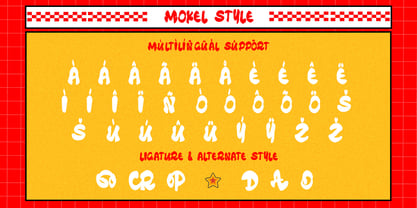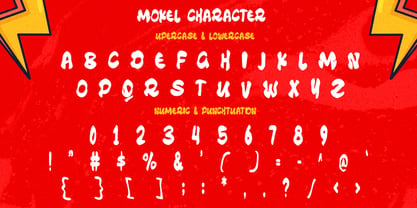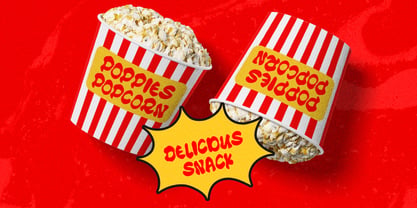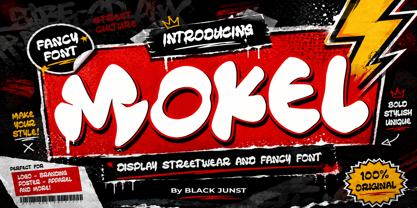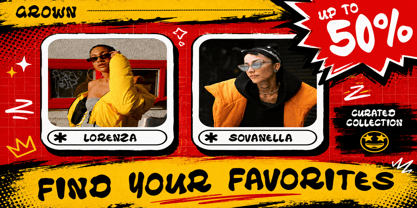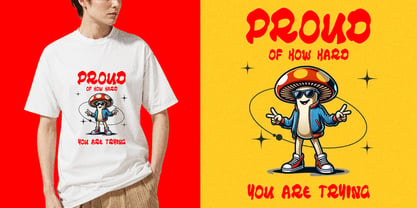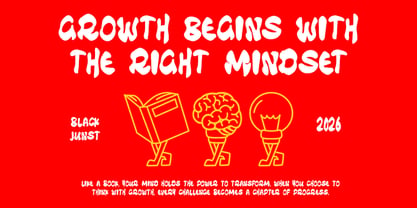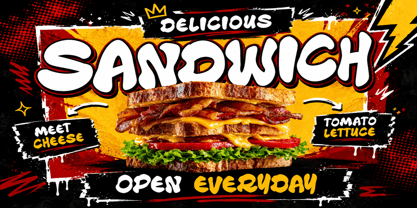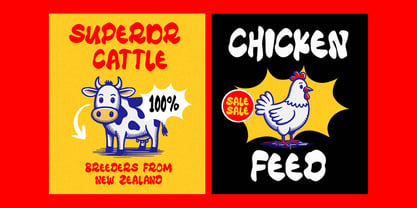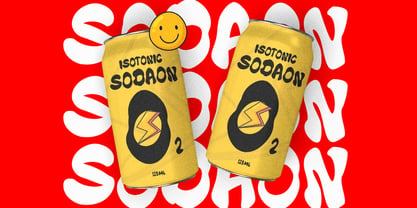
Mokel
La familia tipográfica Mokel fue diseñada por Maulana Semar y publicada por Black Junst. Mokel contiene 1 estilos. Más información sobre esta familia
Mokel is a bold and playful display font inspired by street culture, urban posters, graffiti energy, and modern pop visuals. With its chunky shapes, smooth curves, and strong personality, MOKEL is made to instantly grab attention and make every design feel loud, fun, and unforgettable.
Perfect for creators who want a font that looks expressive, trendy, and full of character.
Perfect For :
- Streetwear Branding
- Snack & Food Packaging
- Poster Design
- Music Cover
- YouTube Thumbnail
- Kids Branding
- Merchandise
- Social Media Content
- Logo Design
- Fashion Campaign
- Sticker & Comic Style
- Modern Urban Projects
Font Features :
- Uppercase & Lowercase
- Numbers & Punctuation
- Multilingual Support
- Ligatures
- Bold Unique Style
MOKEL works perfectly for bold headlines and eye-catching typography. Whether you are creating streetwear branding, fun packaging, trendy posters, or modern social media graphics, this font helps your design stand out instantly.
Make your project louder, fresher, and more stylish with MOKEL.